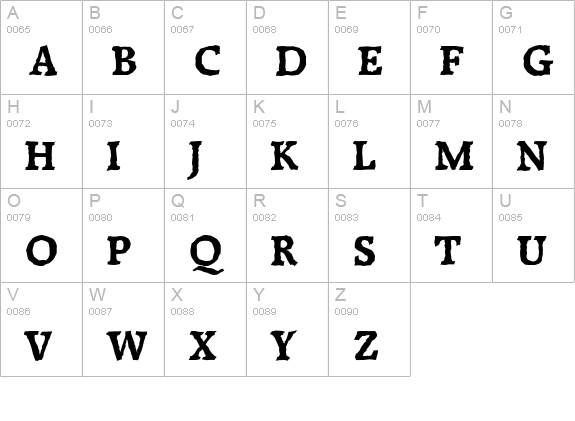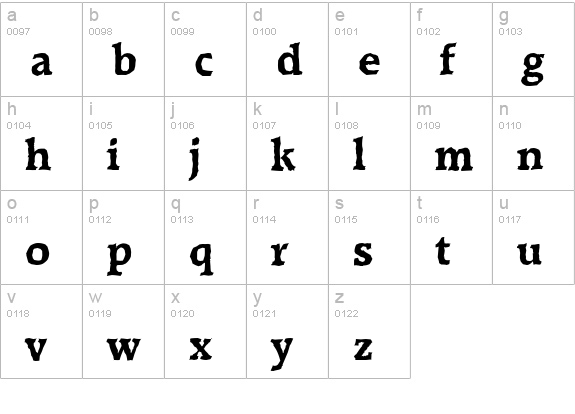
RaleighAntique-Bold Font Details
RaleighAntique-Bold is a strong, high-contrast variant in the RaleighAntique typeface family \xE2\x80\x94 well suited to headlines, attention-grabbing titles, and strong calls-to-action.
RaleighAntique-Bold font is a timeless and elegant typeface that exudes sophistication and charm. Its bold and distinctive lettering makes it perfect for adding a touch of vintage flair to any design project. Whether you're creating invitations, posters, or branding materials, RaleighAntique-Bold is sure to make a statement. The font's intricate details and classic curves give it a unique character that sets it apart from other fonts. Its versatility allows it to be used in a variety of design applications, from traditional to modern. Best of all, RaleighAntique-Bold is available for free download at FontsMarket.com. So why wait? Add a touch of nostalgia and elegance to your designs with RaleighAntique-Bold today!